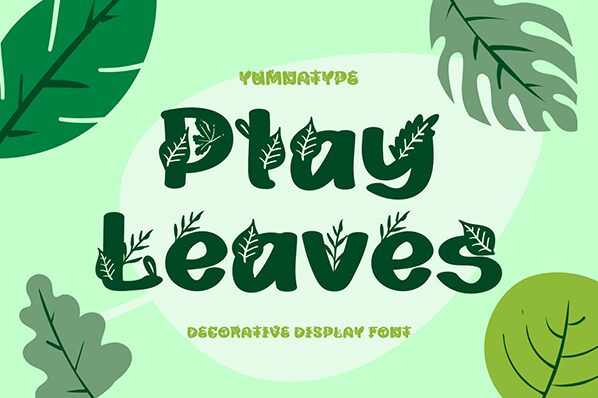
Play Leaves font by Yumna Family is a decorative display font with a bold, nature-inspired personality. The nonconventional design features leaf-textured letters and an inconsistent set of details that make up for the organic feel it provides. It is an excellent choice for your next design project that requires a thematic art-friendly typography piece.
Free of charge, the typeface can find its place in branding designs, packaging projects, custom prints on clothes and Cartes-de-Visite, invitations and greeting cards, magazines covers and headings among others. Analogue as well as digital visuals can take advantage of this one-of-a-kind font.